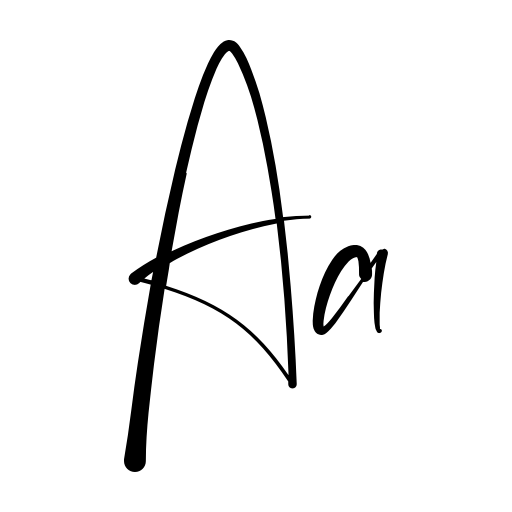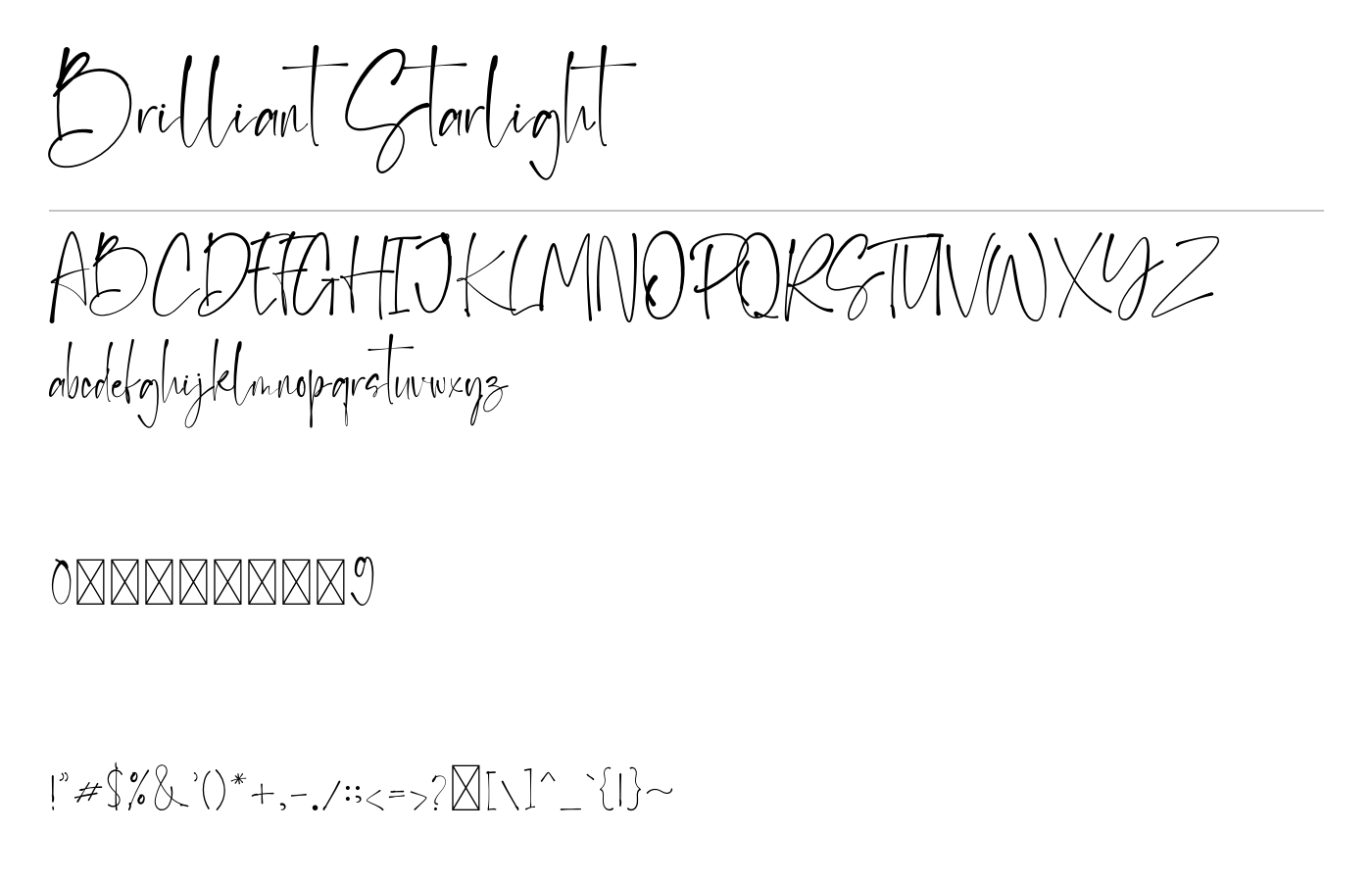
Brilliant Starlight is a delicate handwritten script font with slender, flowing strokes that evoke a modern and artistic feel. Its tall, airy letterforms with varying line thicknesses and whimsical shapes lend an elegant yet casual charm, making it perfect for creative branding, invitations, and stylish editorial use. This font shines in designs that seek a personal, sophisticated touch with a light and graceful personality.
Brilliant Starlight Font
About Brilliant Starlight Font